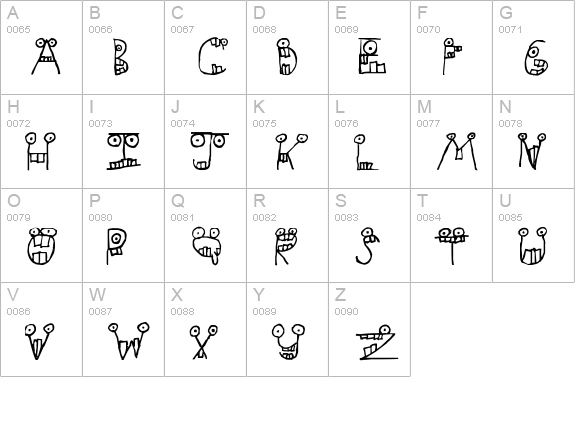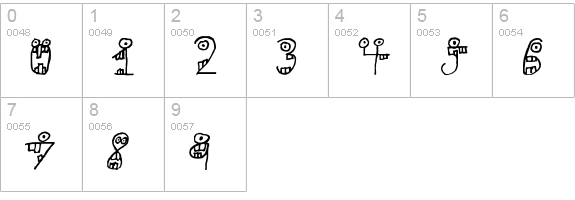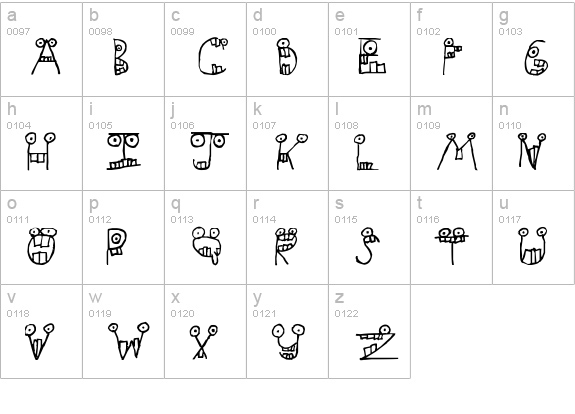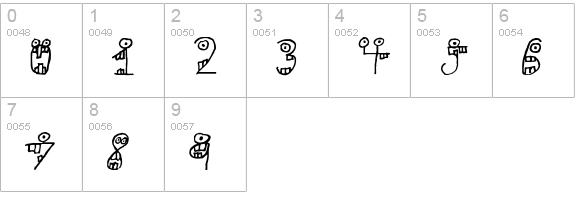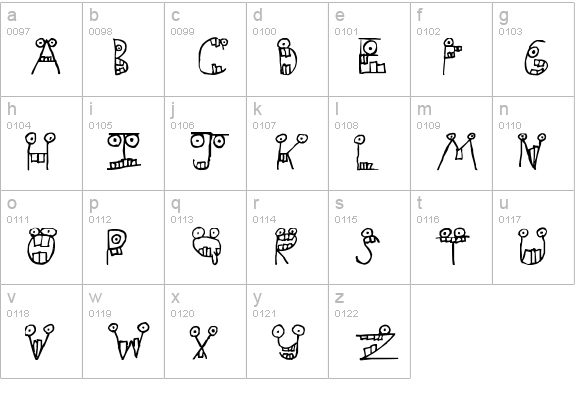
Slapstick Dental Inc. Font Details
Slapstick Dental Inc. font is a playful and vibrant typeface that brings a touch of humor to any design project. With its exaggerated strokes and quirky letterforms, this font is perfect for adding a lighthearted and comedic element to your designs. The Slapstick Dental Inc. font is not only visually captivating, but it also offers a range of versatility in its application. Whether you're designing a dental clinic logo, creating a humorous poster, or adding a fun twist to a dental-related website, this font is sure to make a lasting impression. One of the best features of the Slapstick Dental Inc. font is that it is freely available to download at FontsMarket.com. This means that you can easily access this font without any cost, making it an excellent option for designers on a budget or those who simply appreciate the value of a good free font. The Slapstick Dental Inc. font is designed with great attention to detail, ensuring that each character is visually appealing and easy to read. Its bold and energetic letterforms make it ideal for headlines and titles, while also maintaining readability for longer passages of text. Whether you're a professional designer or someone looking to add a touch of whimsy to your personal projects, the Slapstick Dental Inc. font is a must-have in your font collection. Its free availability at FontsMarket.com makes it easily accessible to anyone, so don't miss out on the opportunity to add this delightful typeface to your design arsenal.